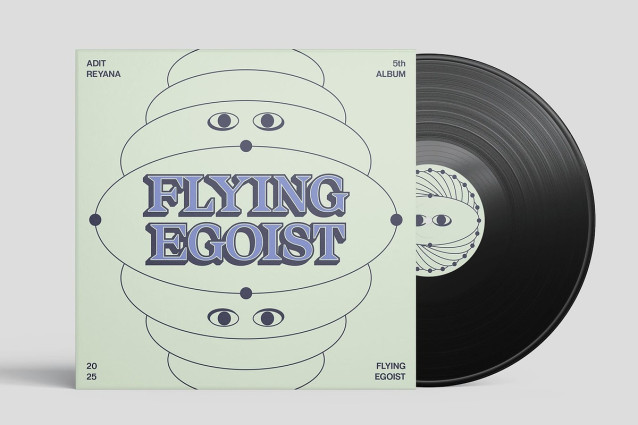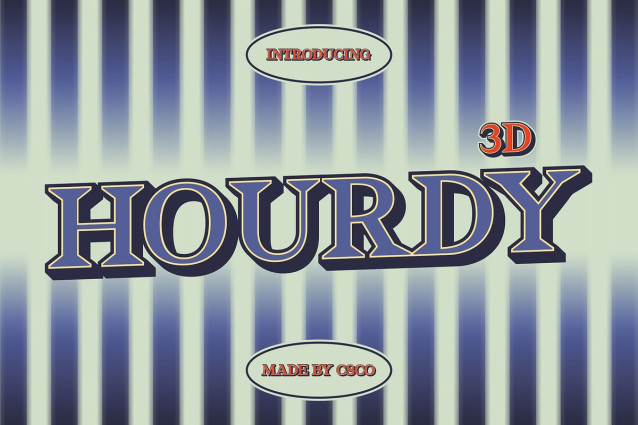
Hourdy 3D Font
Hourdy 3D Font is a modern serif font that merges classic elegance with contemporary simplicity. The sharp, well-defined serifs give it a polished and professional appearance, while the smooth, proportional lines lend a minimalist and modern vibe.
Dynamic 3D Effect for Added Depth What sets Hourdy 3D apart is the subtle 3D effect applied to each letter. This dimensional enhancement gives the font a captivating sense of depth and movement, making it stand out and catch the viewer’s eye. The 3D effect transforms the font from a simple serif into a dynamic visual element, adding dimension and character to any design.
Perfect Balance of Elegance and Modernity Hourdy 3D strikes the perfect balance between classic sophistication and modern edge. Its clean forms and sharp serifs evoke a sense of tradition and high-end professionalism, while the 3D effect introduces a futuristic element, ensuring the font is fresh and current. This makes Hourdy 3D an ideal choice for projects that need to merge elegance with a bold, visual impact.
Ideal for Luxury and Corporate Designs From luxury branding to corporate logos and editorial design, Hourdy 3D brings a strong visual presence to any project. Its refined appearance makes it perfect for high-end brands, while its modern 3D effect ensures it remains relevant in contemporary design trends.